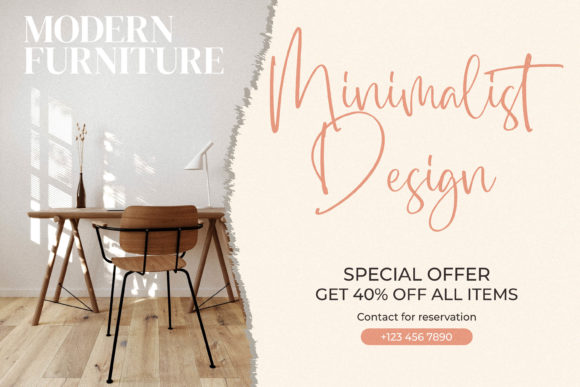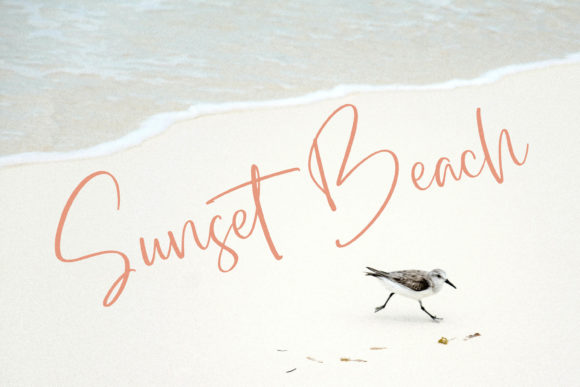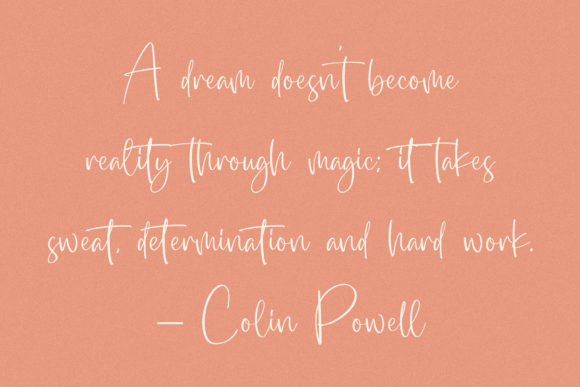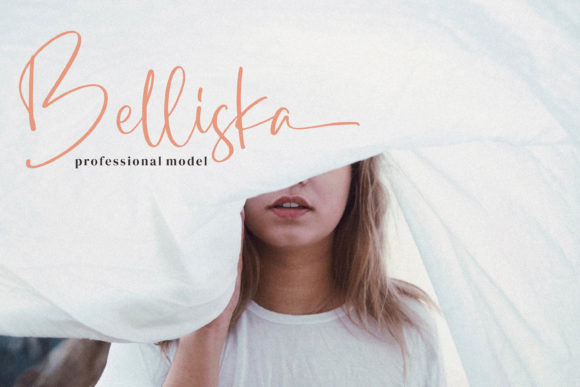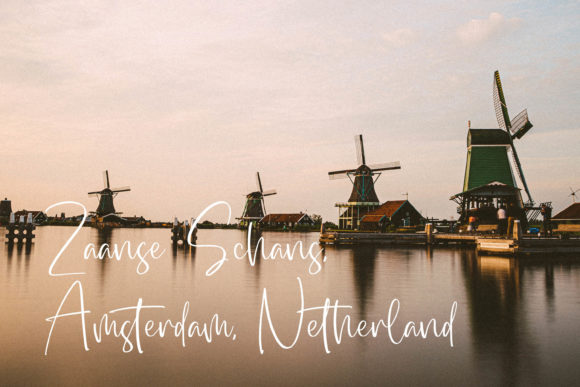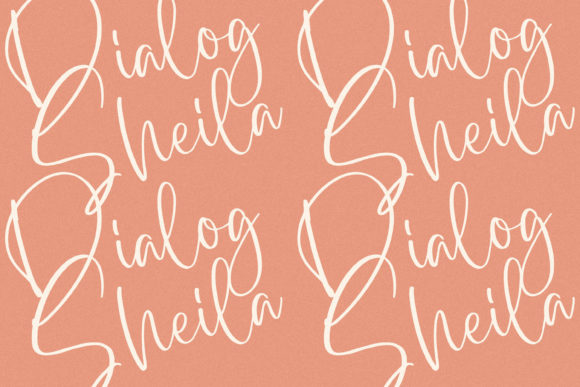
Introducing Dialog Sheila Font: Elevate Your Designs with Elegance and Flair
In the world of typography, a font can make or break a design. It’s the perfect blend of style, elegance, and personality that can elevate a project from ordinary to extraordinary. If you’re a designer, crafter, or DIY enthusiast looking for a font that embodies delicacy, elegance, and flow, look no further than Dialog Sheila Font. This beautiful, handwritten font is about to become your new go-to for creating stunning visual content.
The Beauty of Dialog Sheila Font
Dialog Sheila Font is a delicate, elegant, and flowing handwritten font that boasts beautiful and well-balanced characters. Its unique charm lies in its ability to match a wide pool of designs, making it an incredibly versatile addition to your typography arsenal. Whether you’re working on a wedding invitation, a branding project, or a craft tutorial, Dialog Sheila Font is sure to add that special touch of sophistication and whimsy.
What Makes Dialog Sheila Font Stand Out?
• Delicate and Elegant: Dialog Sheila Font exudes refinement and poise, making it perfect for designs that require a touch of luxury and sophistication.
• Flowing Handwritten Style: The font’s flowing, handwritten style adds a personal and human touch to your designs, setting them apart from more traditional and formal typography.
• Well-Balanced Characters: Each character in Dialog Sheila Font is carefully crafted to ensure balance and harmony, resulting in a visually appealing text that’s a joy to read.
• Versatility: Dialog Sheila Font can be used across a wide range of designs, from elegant stationery and wedding decor to modern branding and digital content.
Bring Your Ideas to Life with Dialog Sheila Font
Adding Dialog Sheila Font to your design projects is like adding a dash of magic. It has the power to transform your ideas into stunning visual realities that capture attention and inspire imagination. Whether you’re a seasoned designer or a crafty DIY enthusiast, Dialog Sheila Font is an excellent choice for:
• Wedding and Event Planning: Create beautiful wedding invitations, place cards, and event signage that set the tone for an unforgettable celebration.
• Branding and Marketing: Elevate your brand’s visual identity with elegant and sophisticated typography that communicates your message with style.
• Crafting and DIY Projects: Add a personal touch to your handmade crafts, such as journals, cards, and gift tags, with the unique and charming Dialog Sheila Font.
• Digital Content Creation: Use Dialog Sheila Font to create engaging and visually appealing digital content, including social media graphics, blog headers, and more.
To make the most of Dialog Sheila Font, experiment with different sizes, colors, and pairings with other fonts and design elements. Don’t be afraid to let your creativity shine and push the boundaries of what’s possible with this beautiful font.
Dialog Sheila Font is a true gem in the world of typography. Its delicate, elegant, and flowing handwritten style makes it the perfect addition to a wide range of design projects. Whether you’re a designer, crafter, or DIY enthusiast, Dialog Sheila Font is sure to inspire your creativity and help you bring your ideas to life. So why wait? Download Dialog Sheila Font today and discover the magic of beautiful typography!